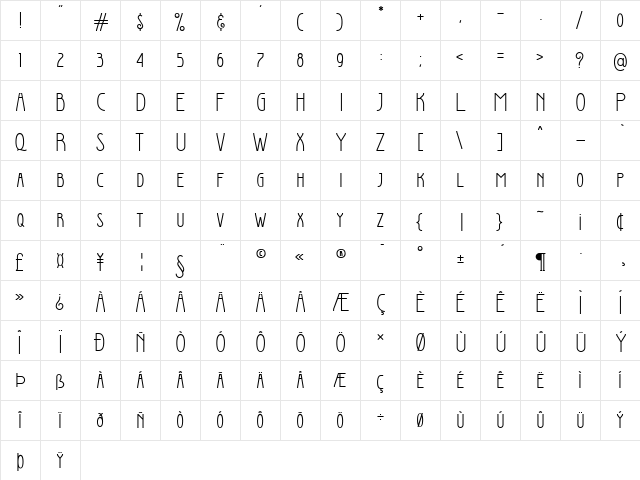
Verola Lux Regular
| Foundry | TapaType |
| Designer | Tezar Tantular |
Design Context for Verola Lux Typeface
Verola Lux takes a measured approach to typography — its balanced proportions and neutral character make it a reliable workhorse for both digital and print work.